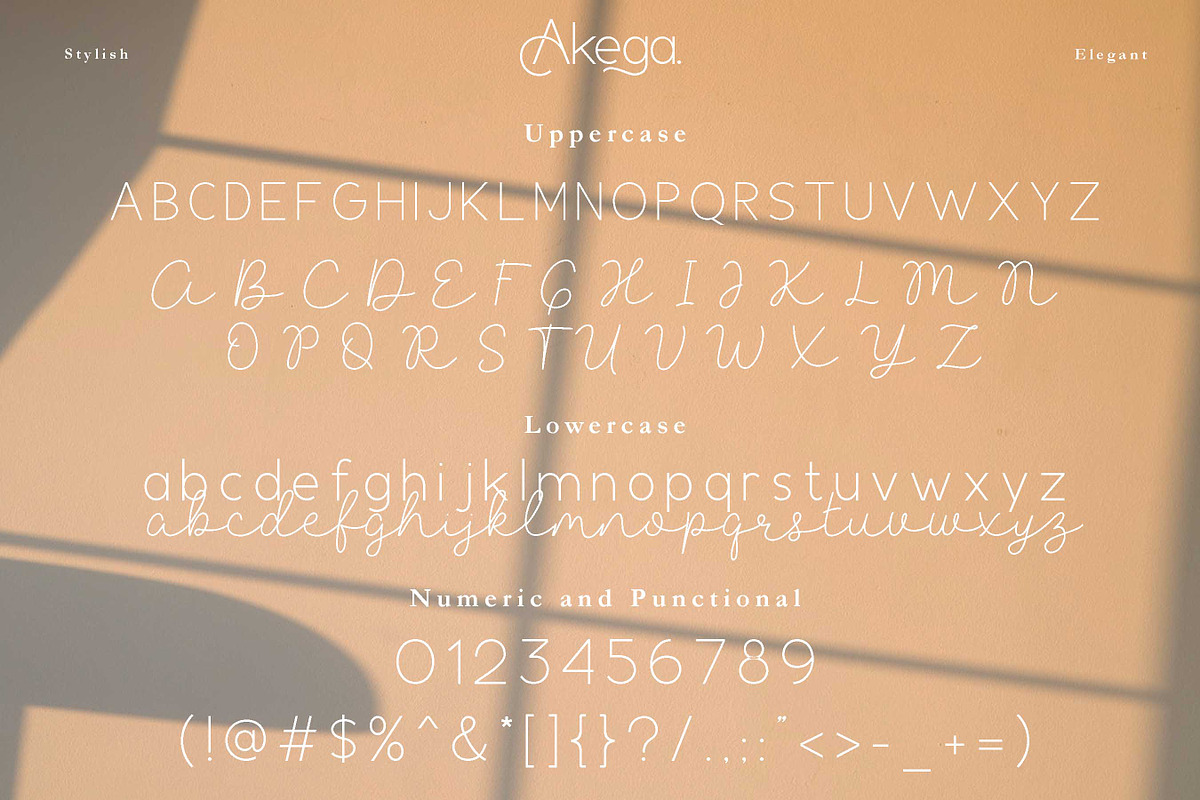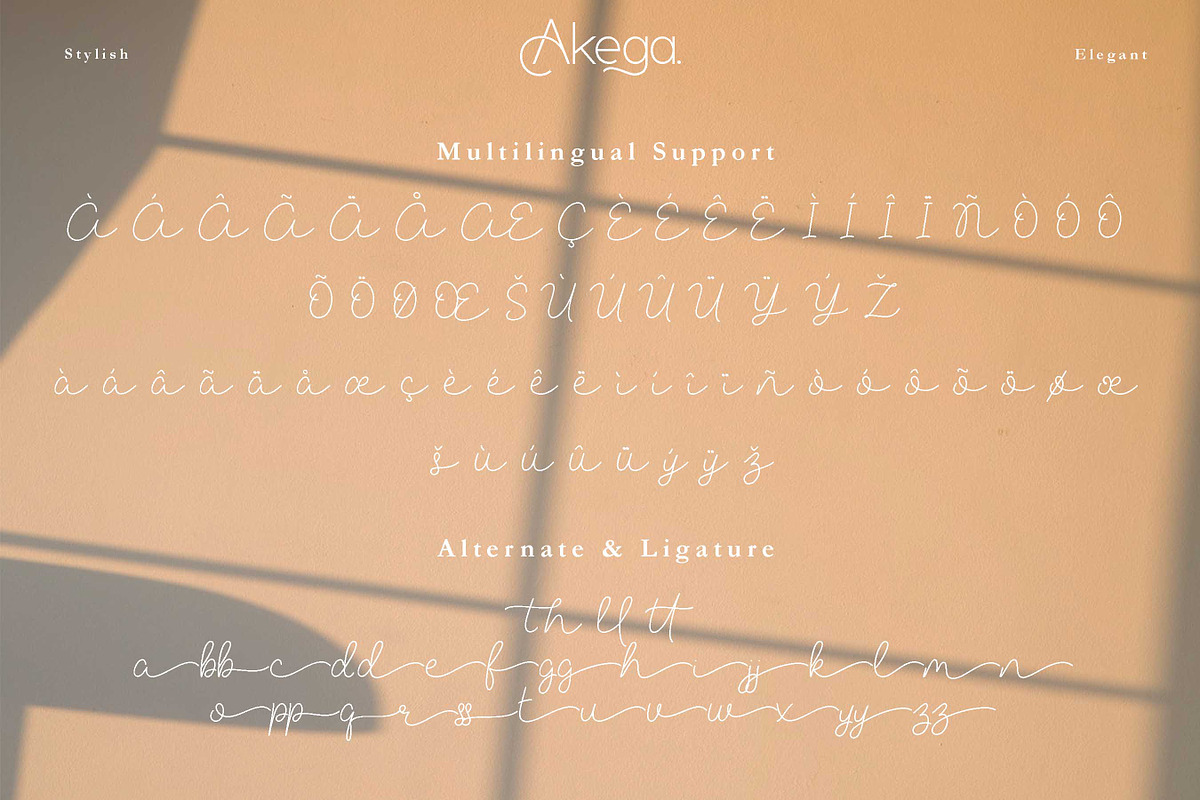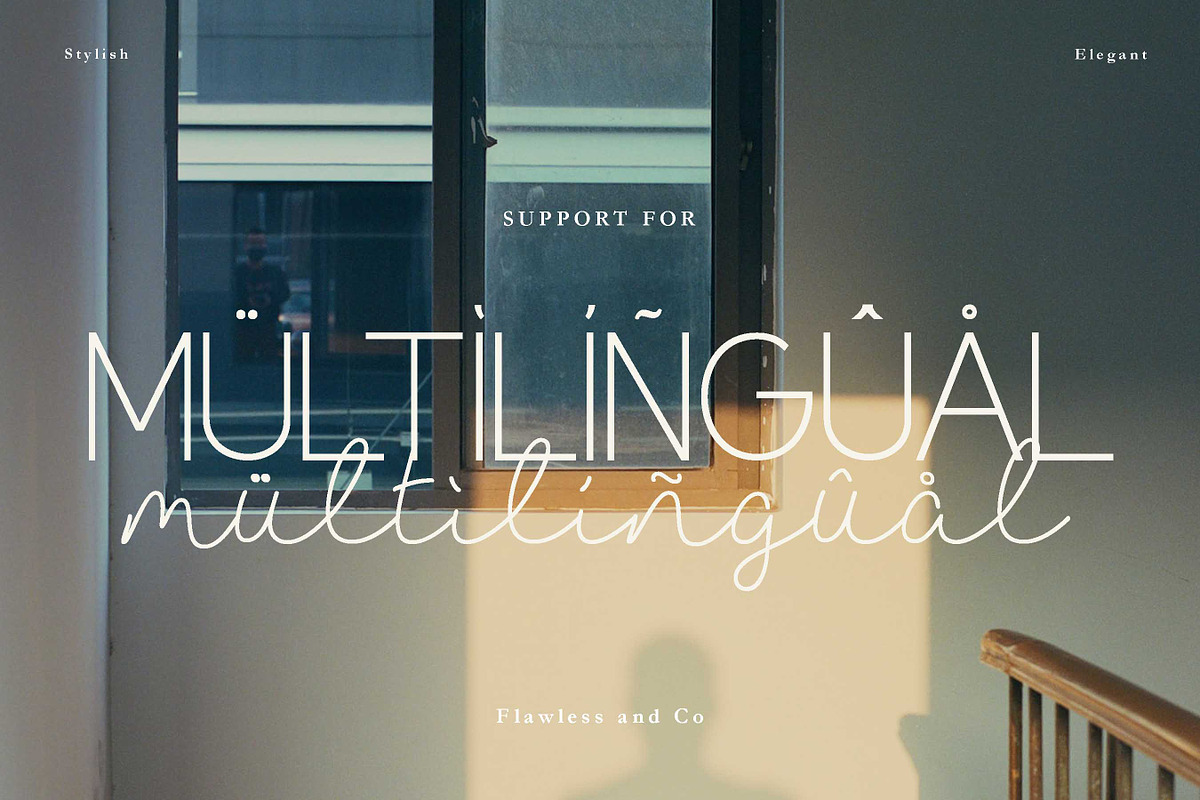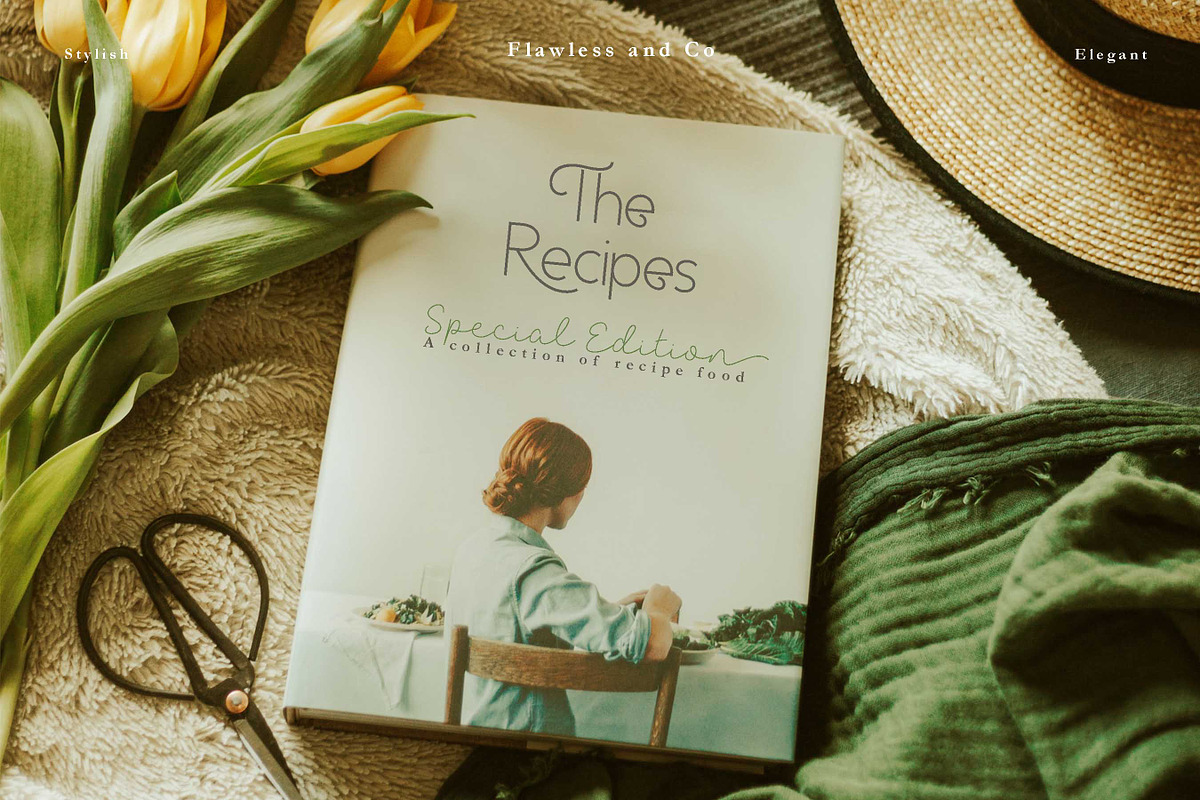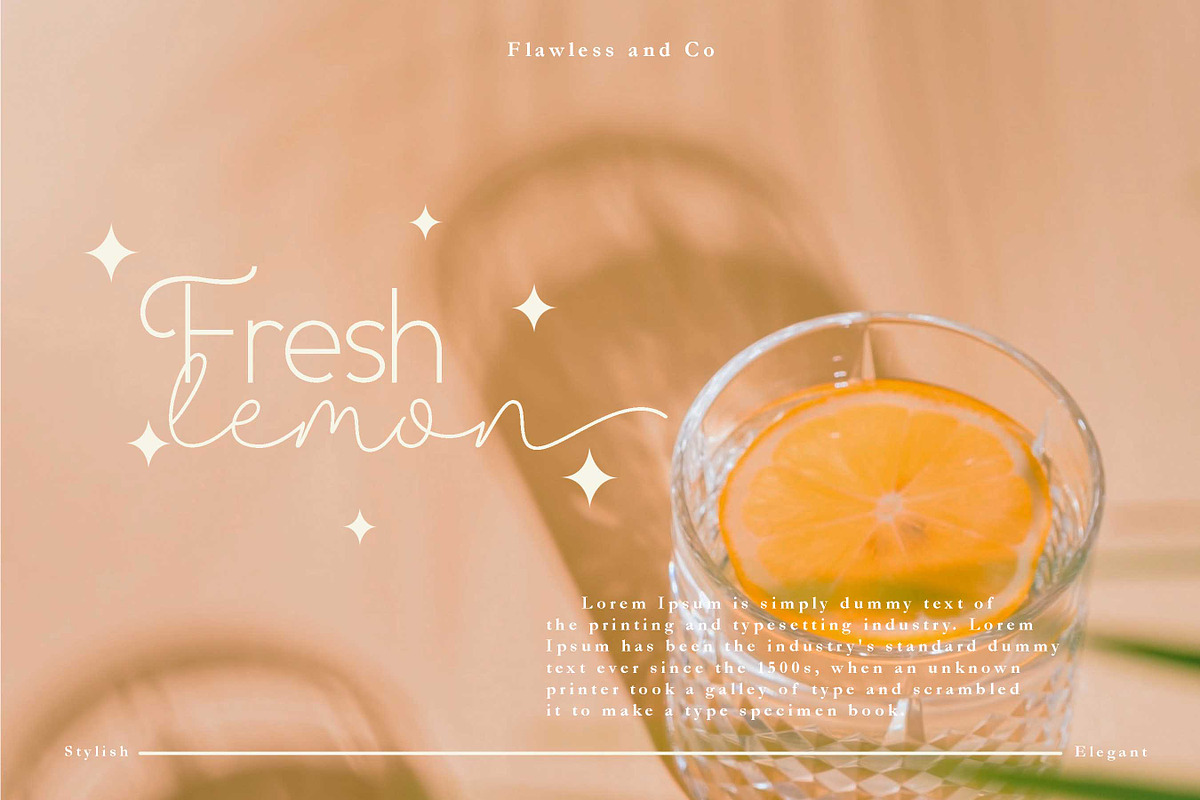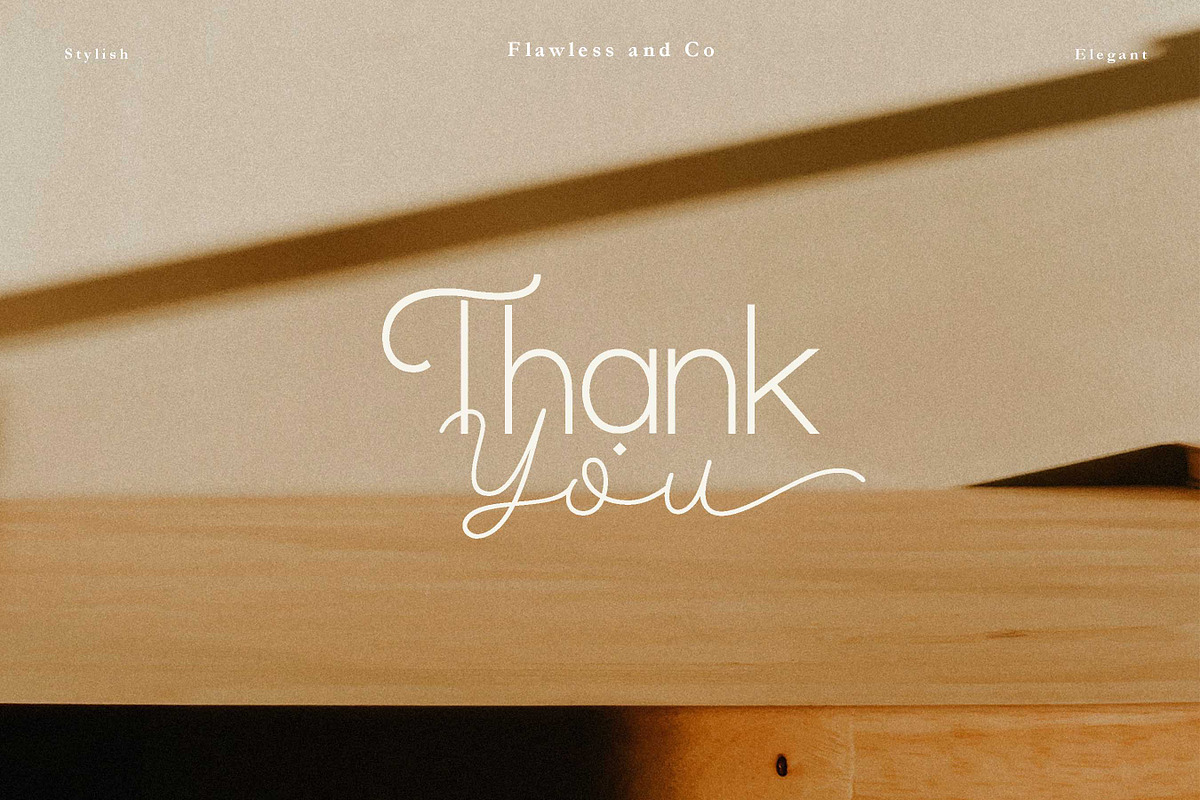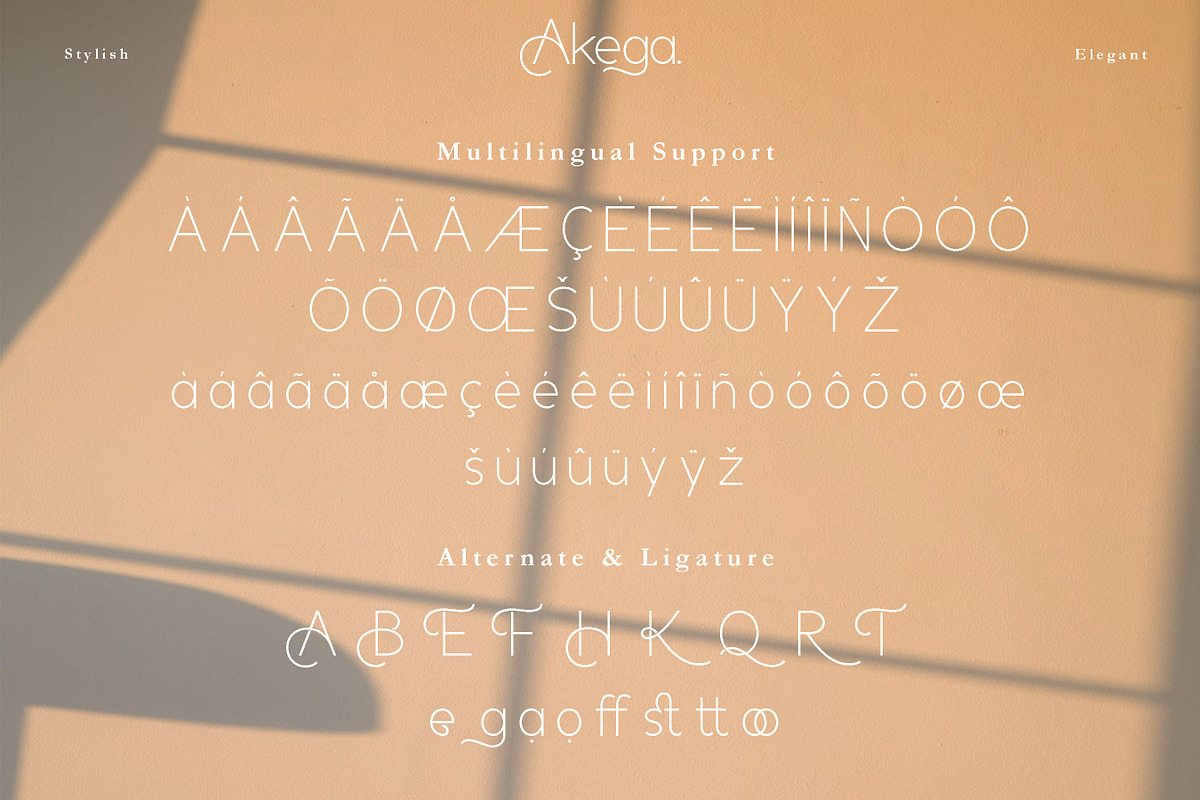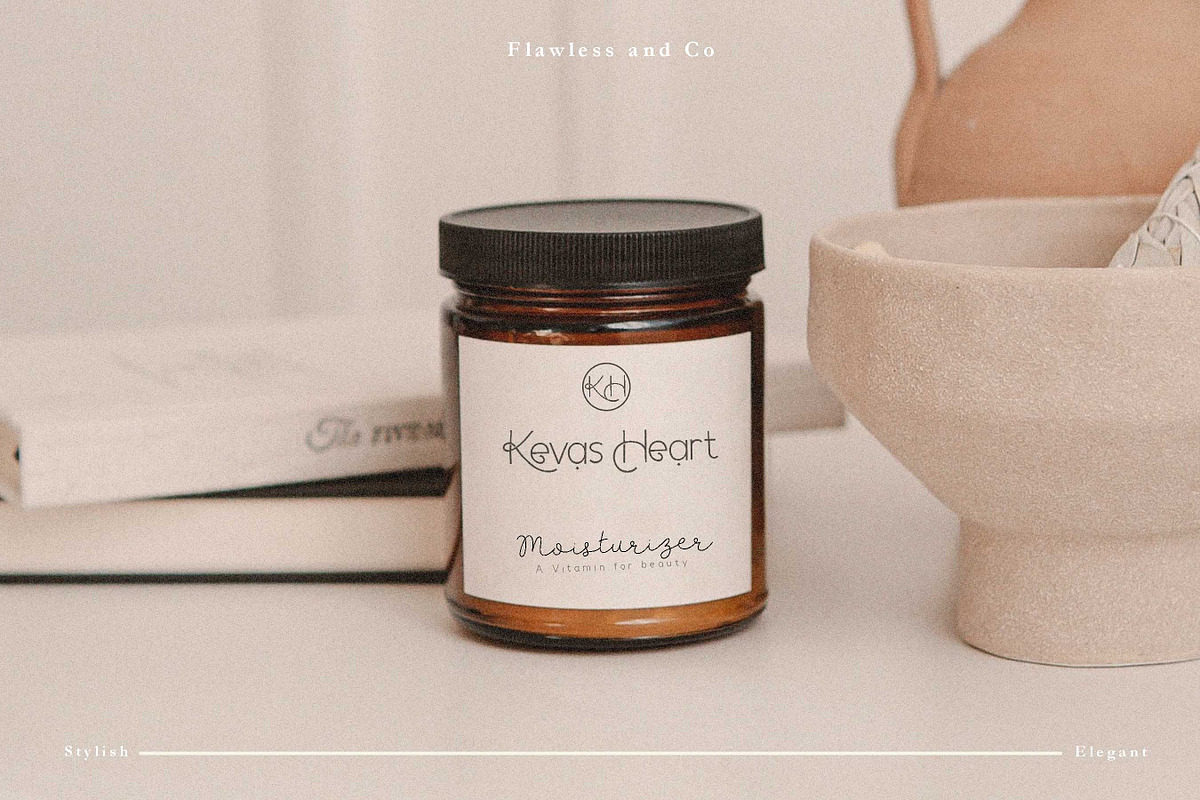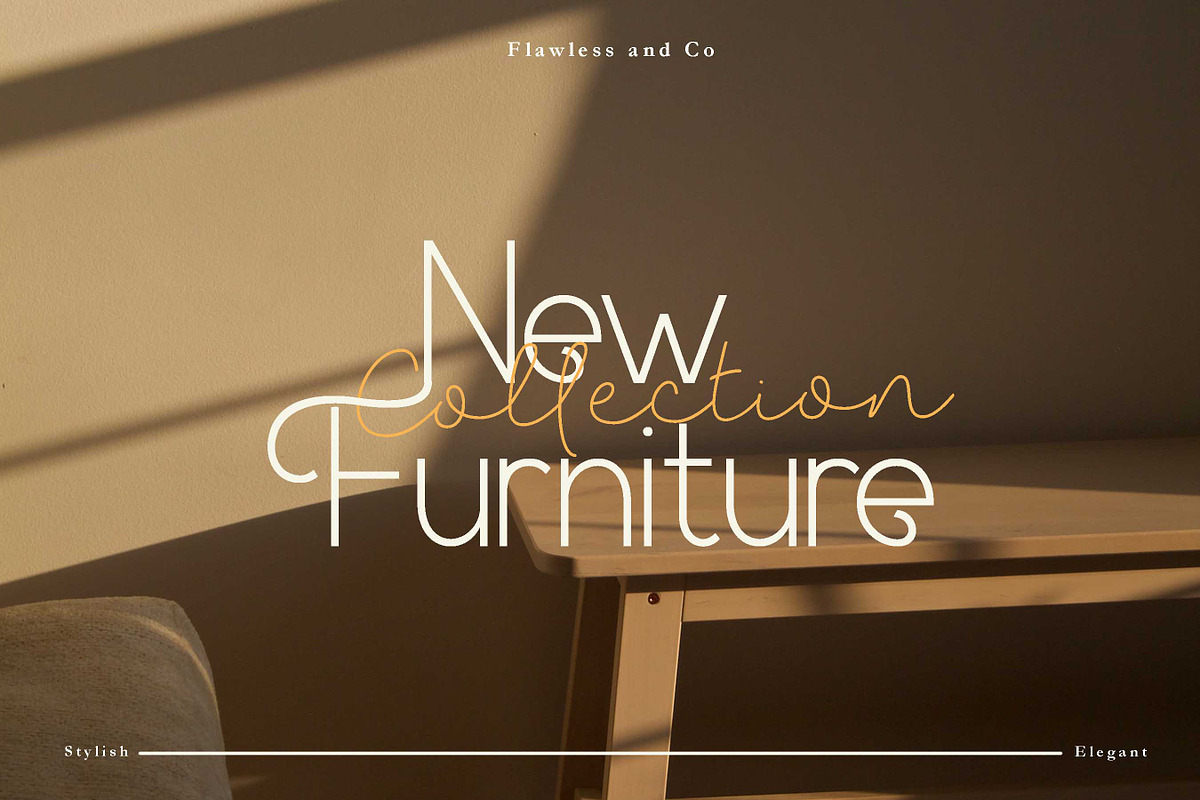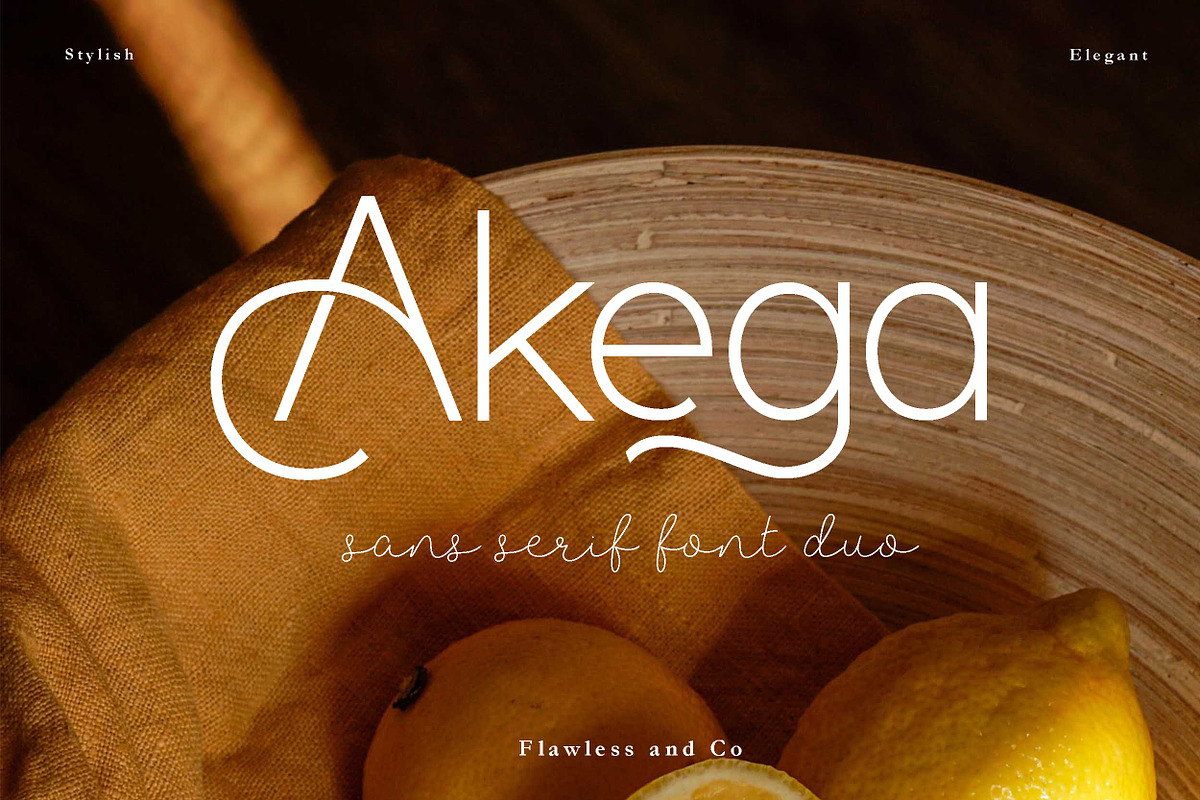
Akega Font Duo
Akega Font Duo - Monoline font, script font, Modern Script, logo font, procreate font, canva font,
introducing our new monoline Font, Modern Font with Elegant Style is perfect for branding, logos, invitation, master heads, and more.
Multilingual Uppercase alphabet A-Z Lowercase alphabet a-z Alternate Character Numbers 0-9 Some punctuation